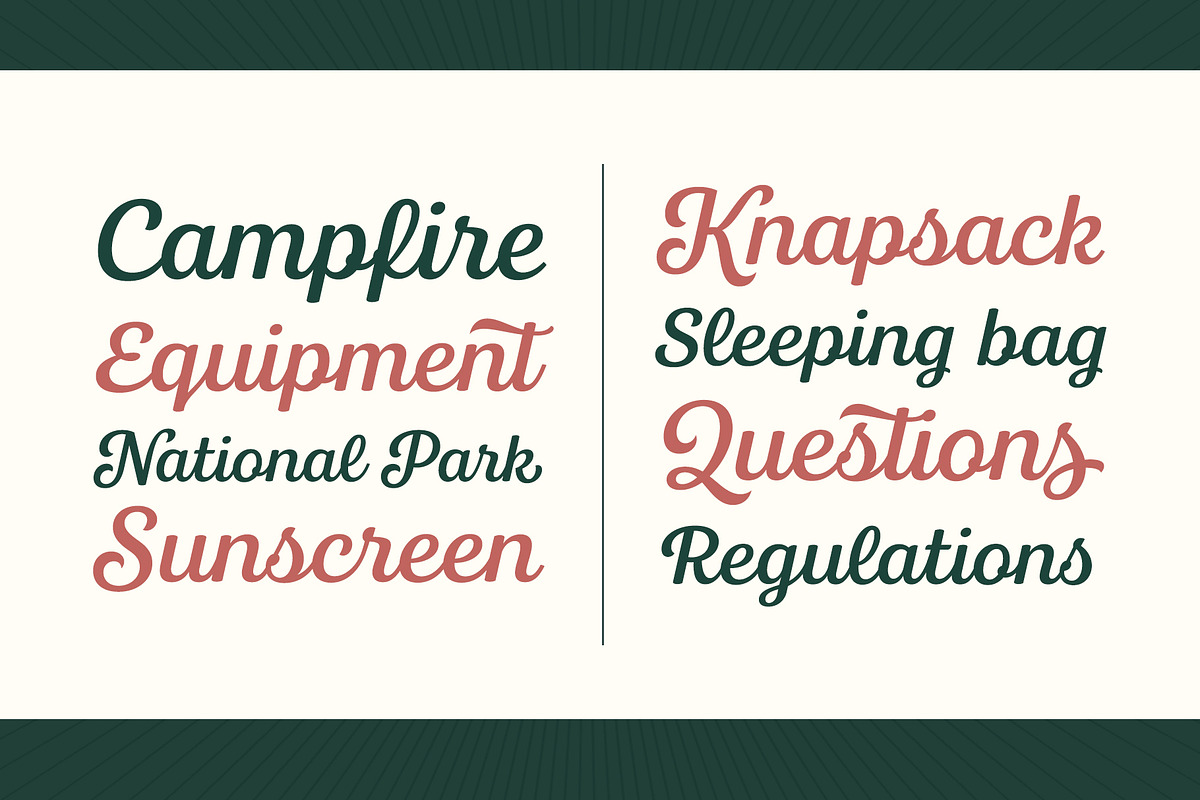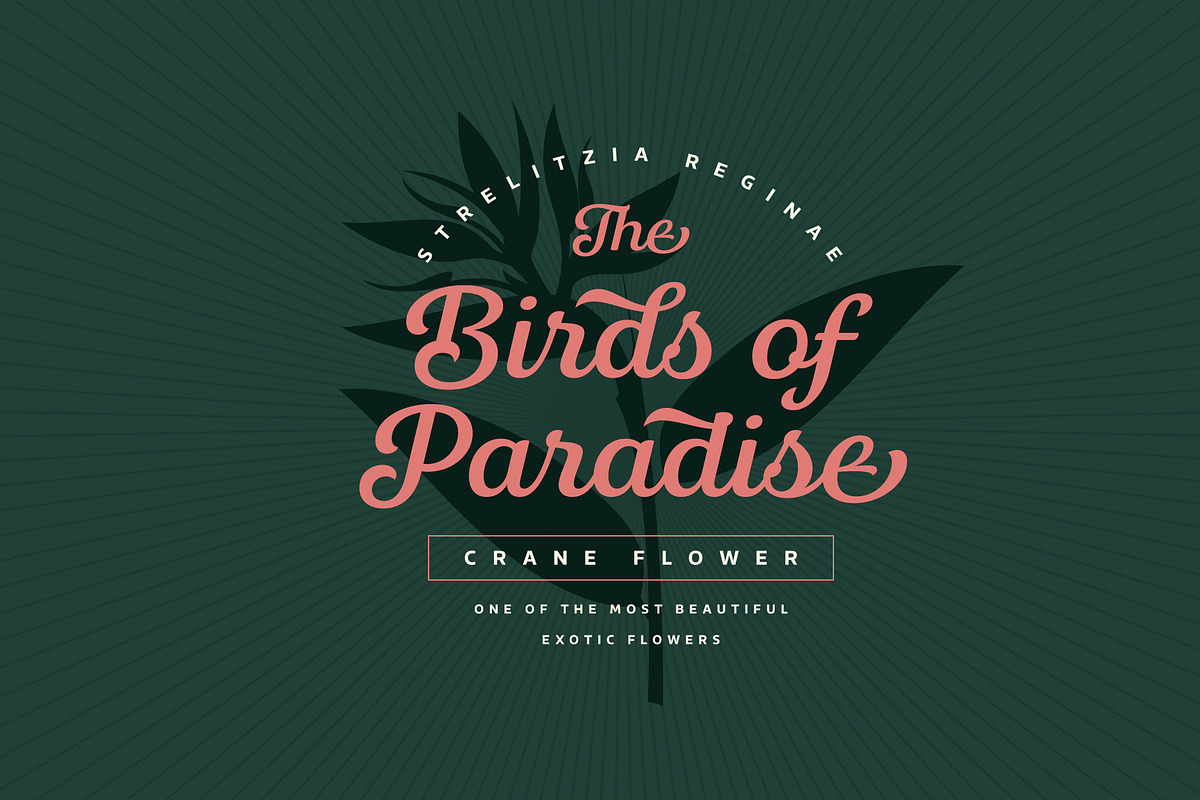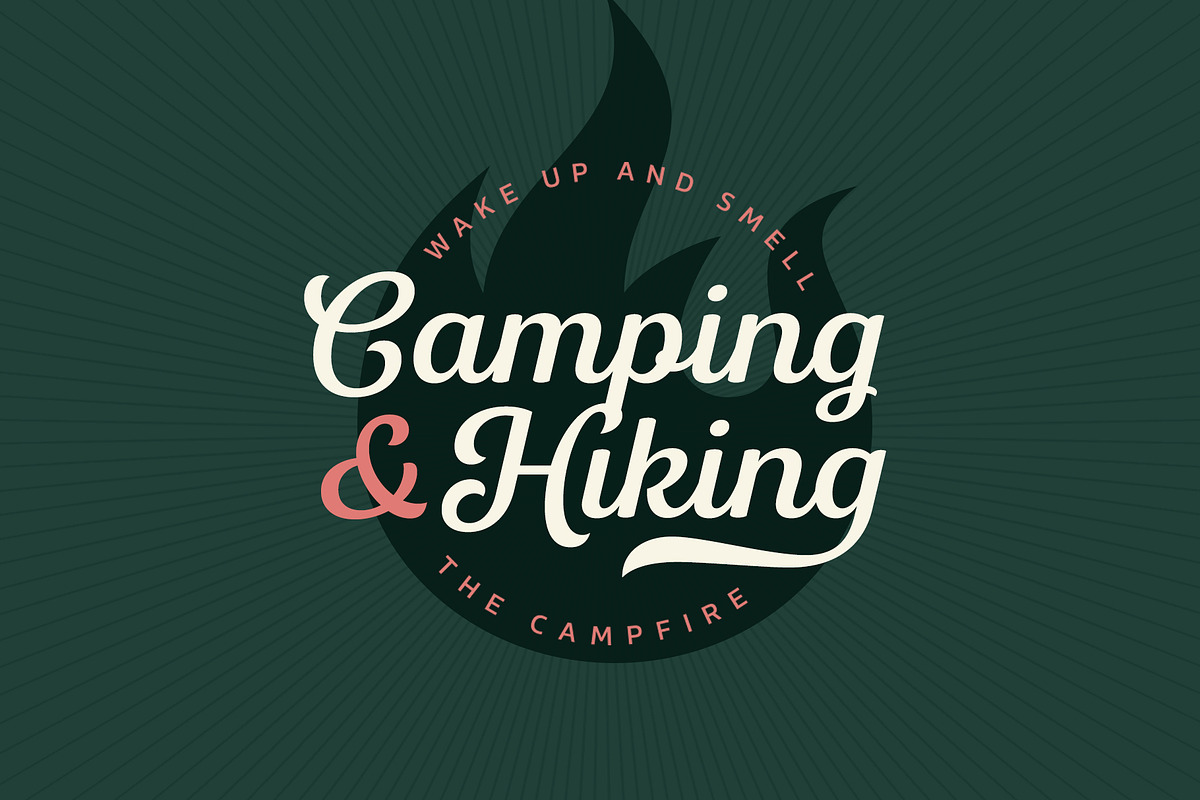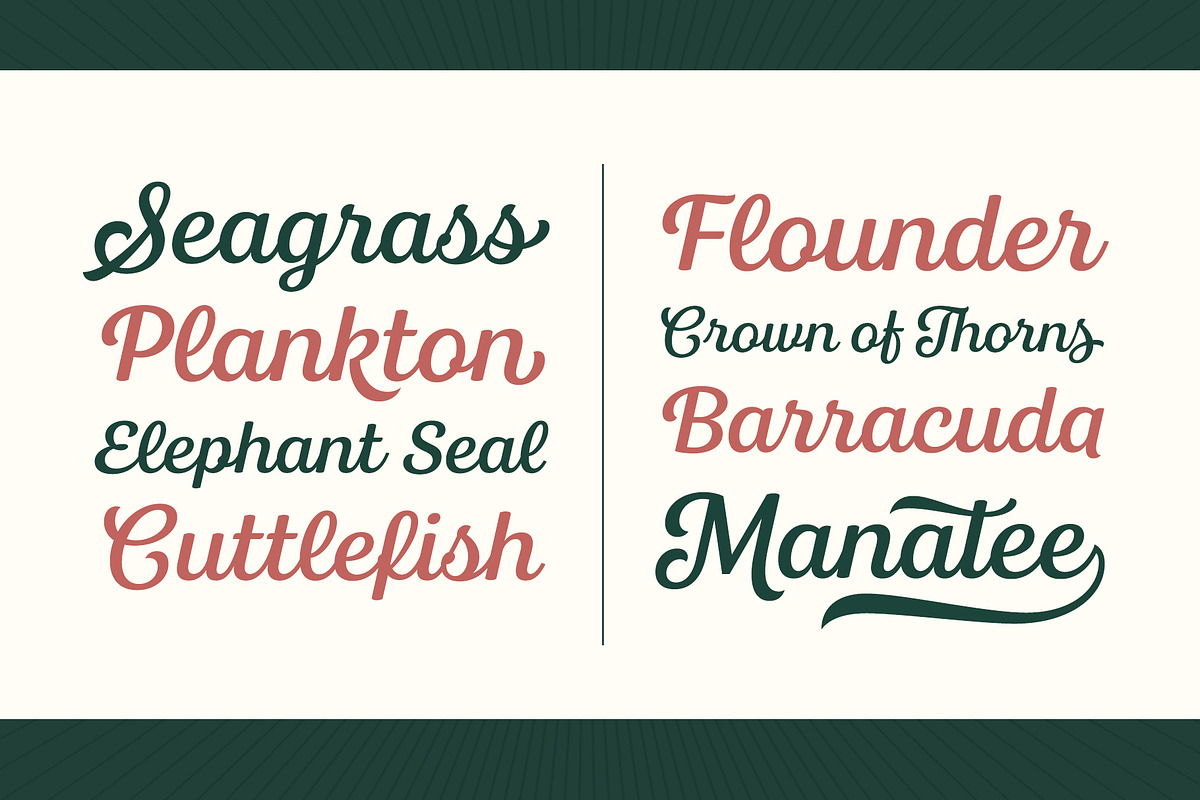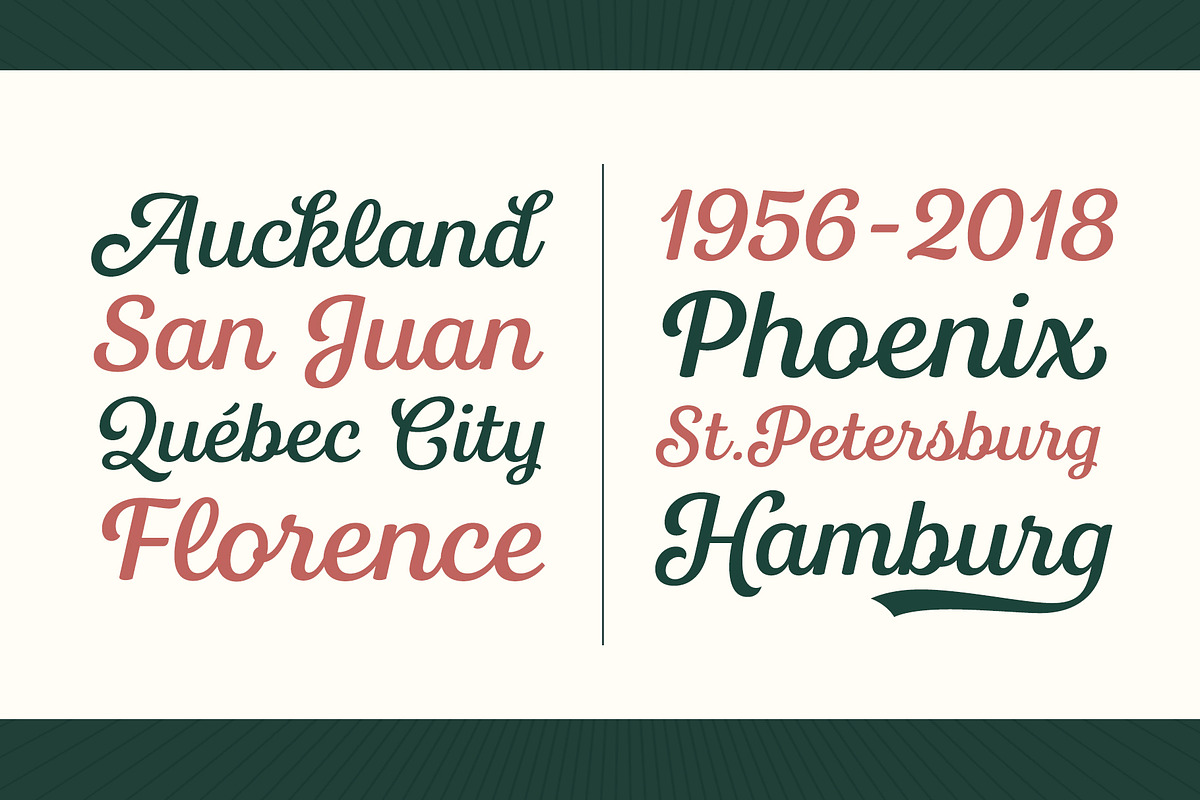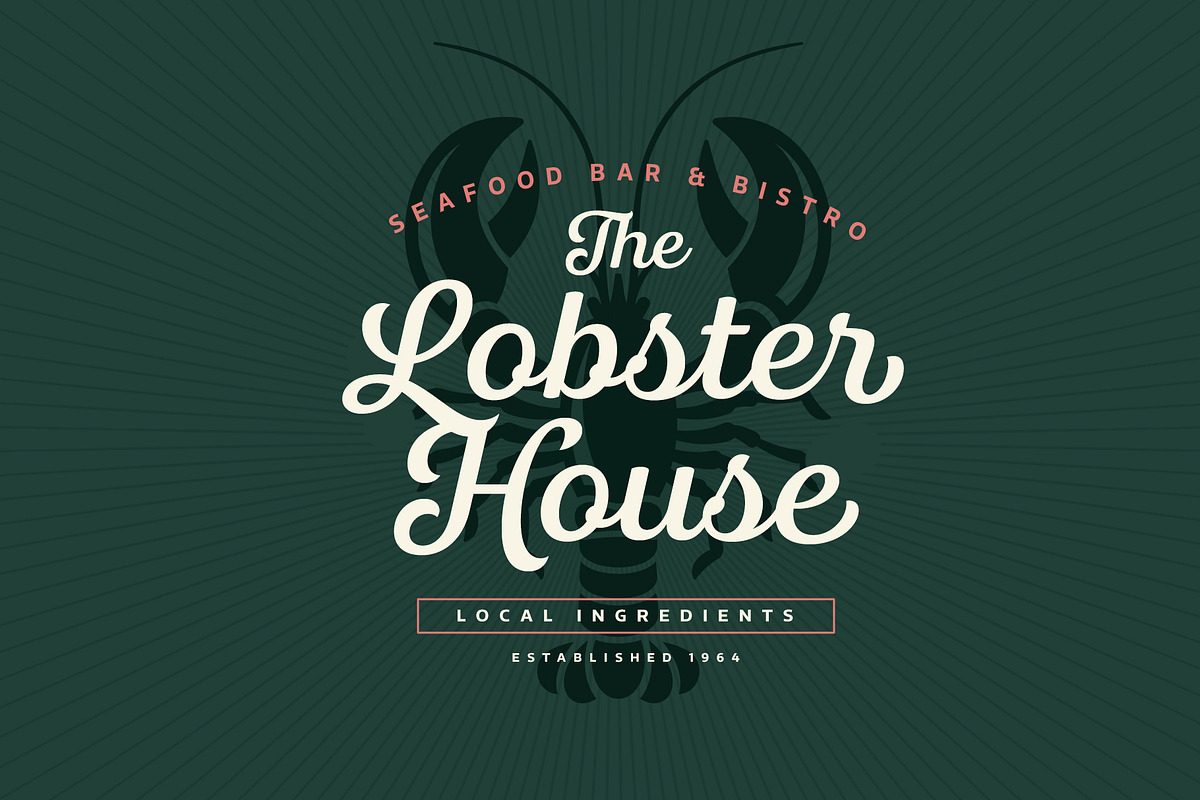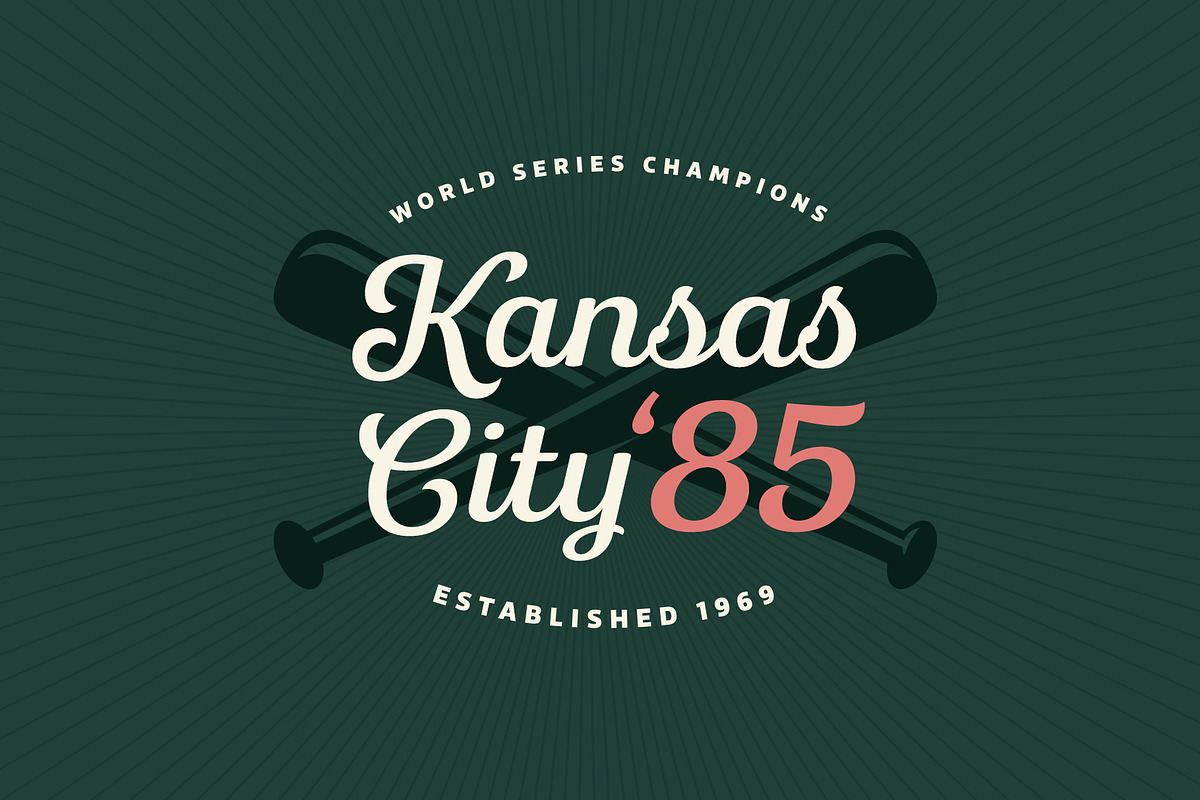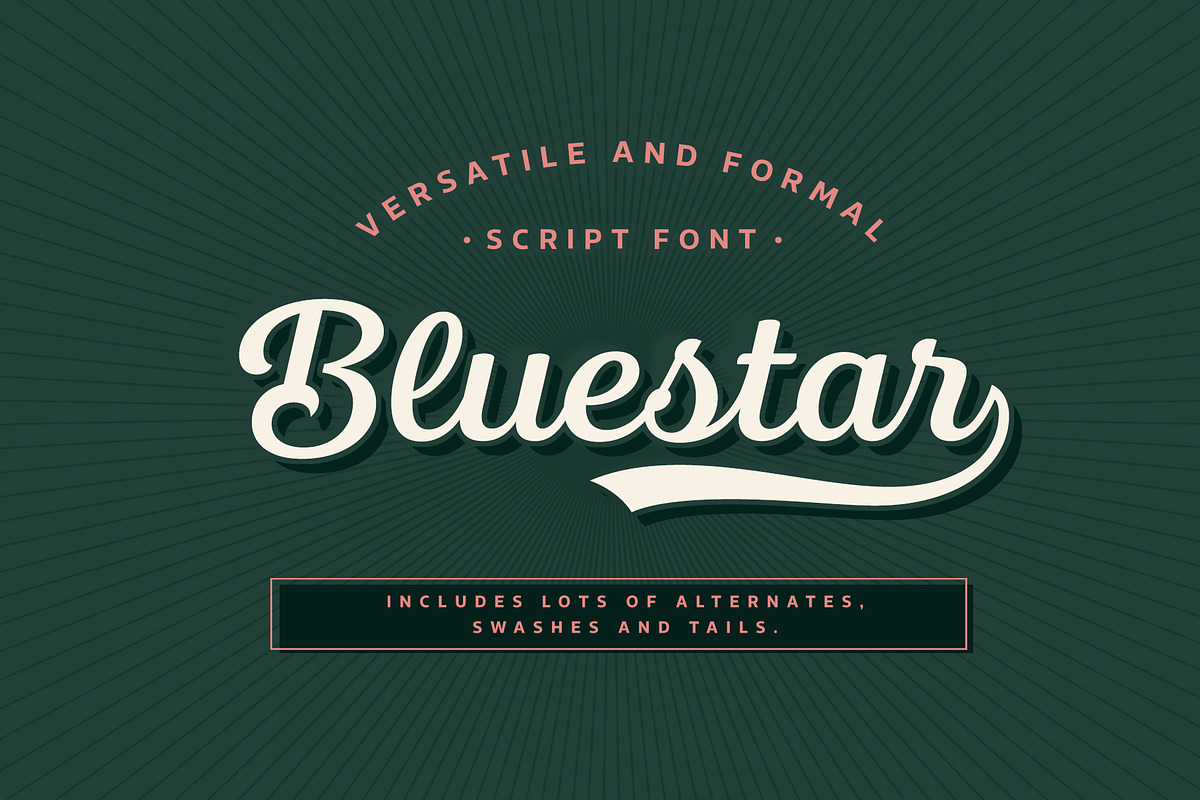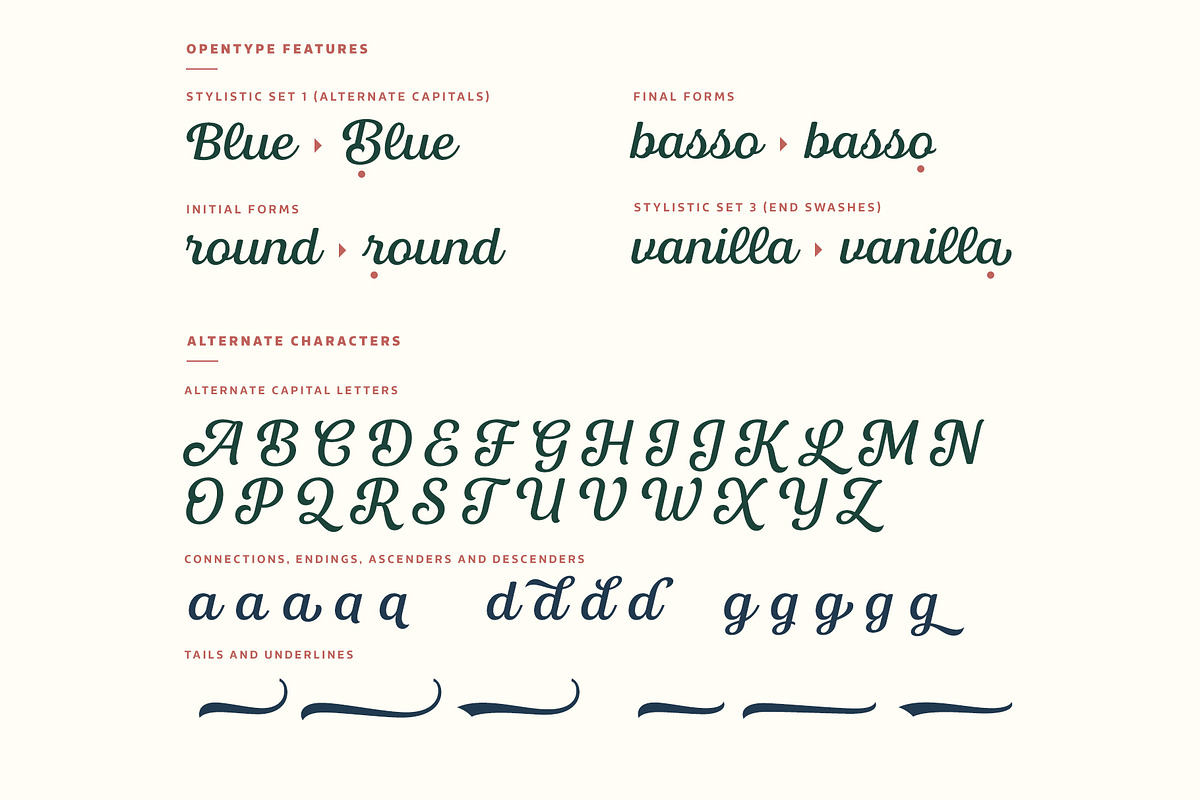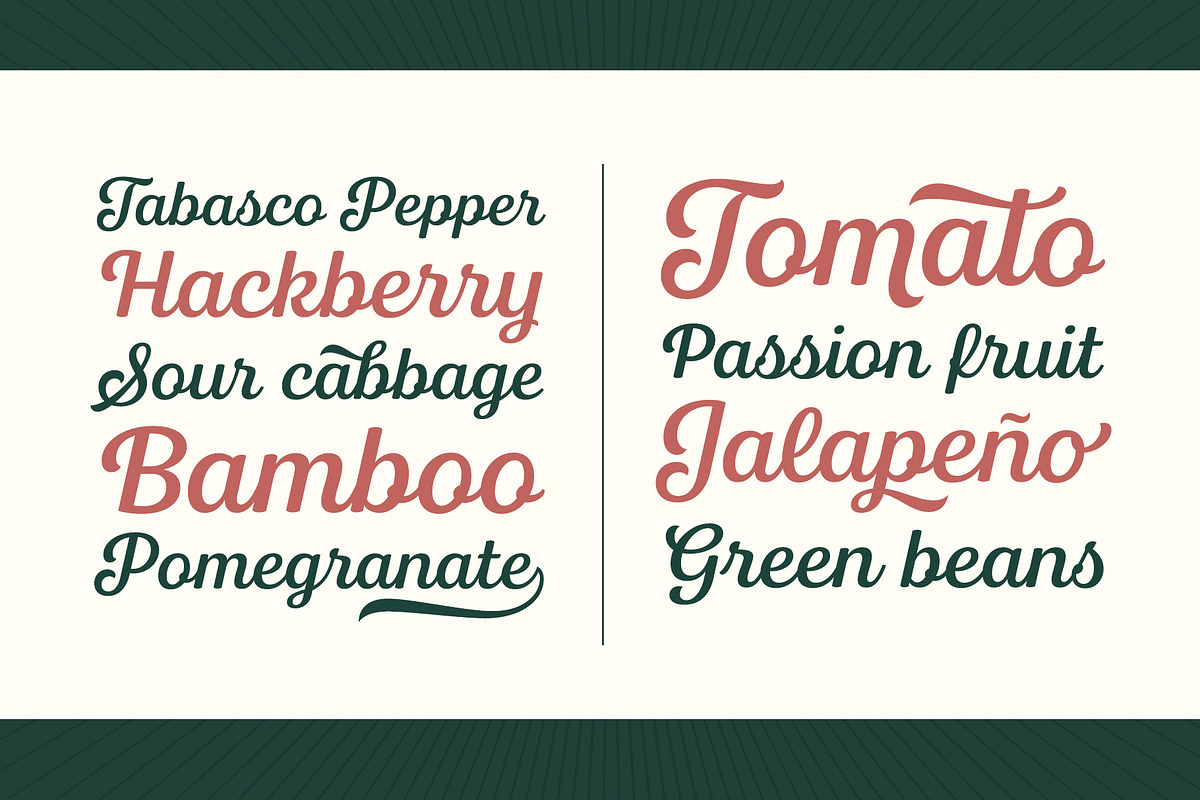
Bluestar Italic
Bluestar Italic is a roundhand script with modern touch. It has two sets of capital letters; one is more basic and subtle and the other (Stylistic Set 1) is bigger and fancier.
Bluestar has also lots of alternates for ascender, descenders, end swashes etc. to give a good amount of possibilities to play with and make some unique designs. It also has few options for tails and underlines.